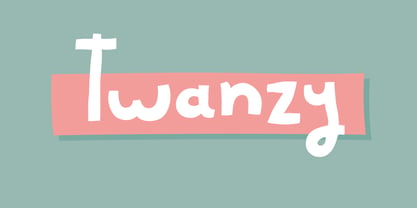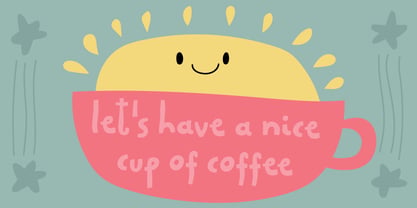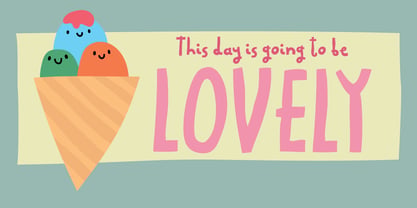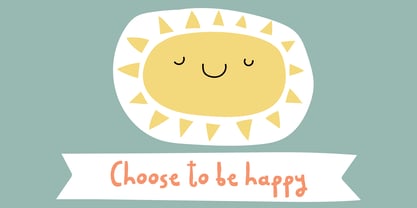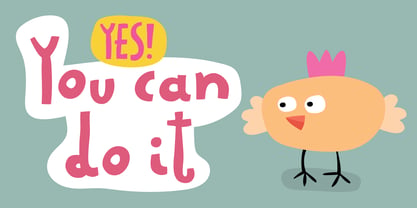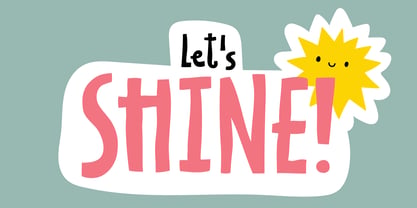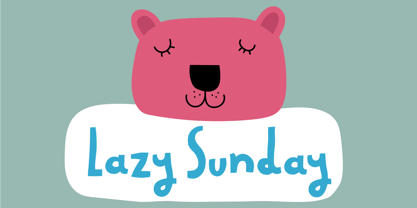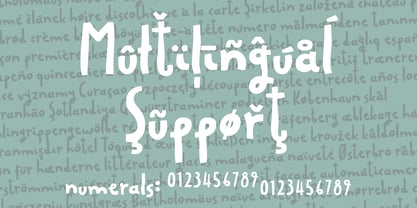
Twanzy
The Twanzy Font Family was designed by Jakob Fischer and published by PizzaDude.dk. Twanzy contains 2 styles and family package options. More about this family
Twanzy is a happy-go-lucky kind of font. The attitude is cheerful, silly and happily unconcerned about everything!